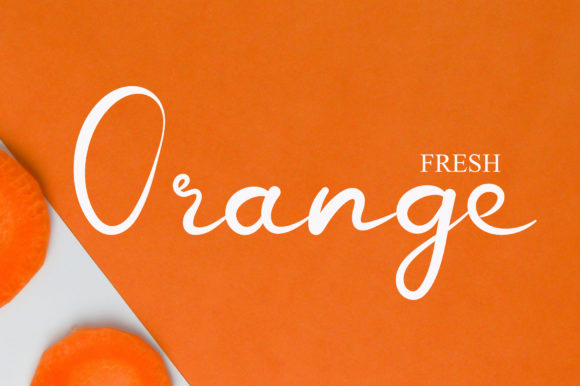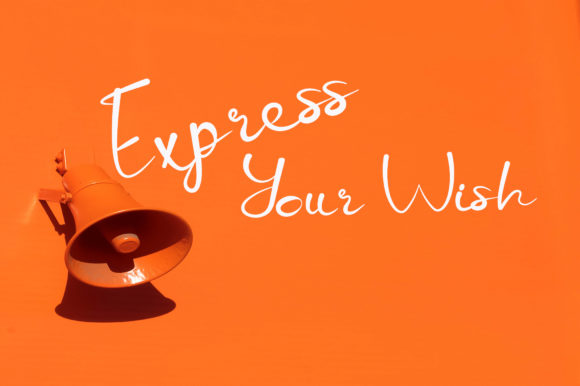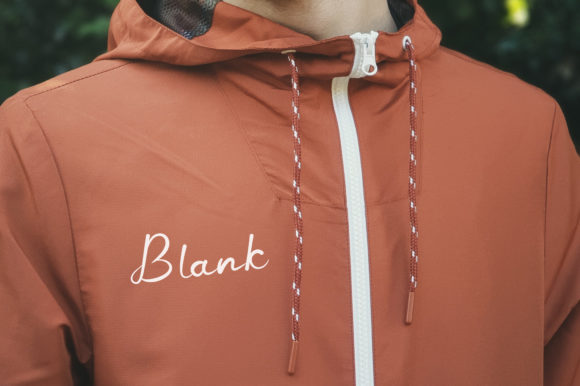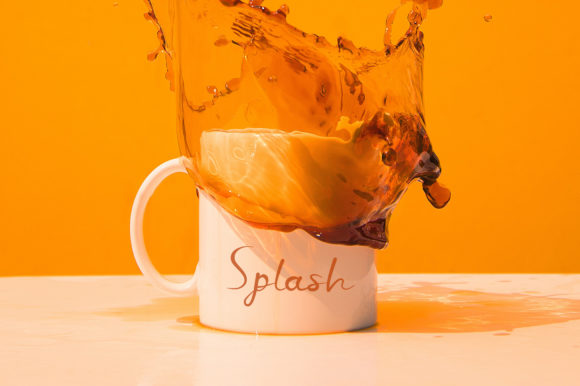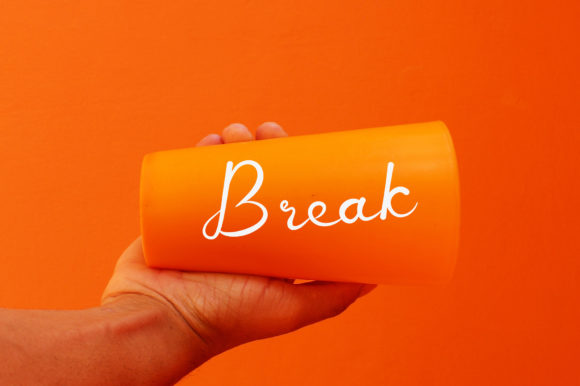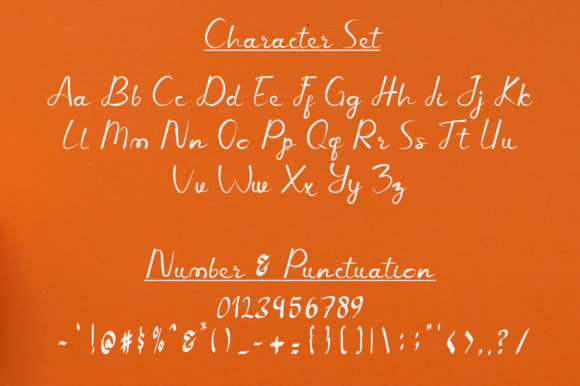
Introduction to Middle-M Font
Remember that moment when you were working on a creative project and you just couldn’t find the right font to bring it all together? You searched high and low, browsing through design resources and font collections, but nothing seemed to match the vision in your head.
That’s where the Middle-M Font comes in – a lovely script font featuring charming, playful characters that seem to dance along the baseline. This high-quality font is a game-changer for designers looking to add a touch of whimsy and personality to their work.
With the Middle-M Font, you can take your creative projects to the next level. Whether you’re designing a logo, a wedding invitation, or a children’s book, this font is sure to make your work stand out. And the best part? It’s available for free download, making it an accessible design resource for anyone looking to elevate their creative game.
Key Features of Middle-M Font
- High-quality font design, ideal for creative projects and design resources
- Transparent background, allowing for seamless integration with various backgrounds
- Includes multiple font weights and styles, providing versatility for various design applications
- Designed at a high resolution of 300 DPI, ensuring crisp and clear text display
Honest Review: Middle-M Font
As a designer, I’m always on the lookout for high-quality design resources to elevate my creative projects. Recently, I stumbled upon the Middle-M Font, and I’m excited to share my honest review.
Here are the things that work well for me: ✨
- High-quality font with a unique, modern aesthetic
- Transparent background, making it easy to use in various design contexts
However, I did encounter a few limitations: ⚠️
- The font is not as versatile as I’d like, with limited variations and styles
- Some characters may require manual adjustment to fit certain design requirements
Overall, I’m impressed with the Middle-M Font’s potential to add a touch of modernity to my designs. While it may not be perfect, it’s a great addition to any designer’s toolkit, especially for those looking for a free and high-quality font.
Transparent Background
The Middle-M Font features a transparent background, making it easy to layer over images or other design elements.
Experiment with different font sizes, colors, and combinations to create unique and eye-catching designs.
The Middle-M Font is ideal for:
- Creating visually appealing logos and branding materials
- Designing engaging social media graphics
- Developing high-quality presentations and reports